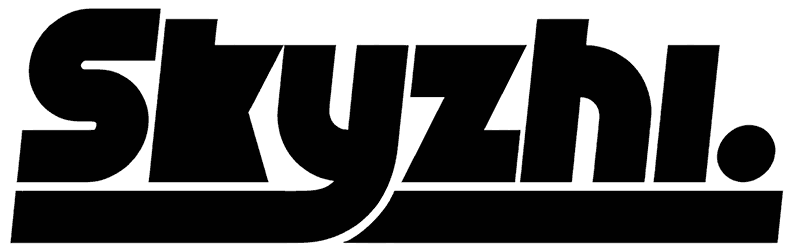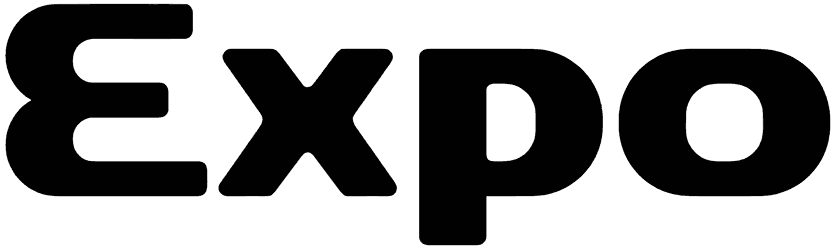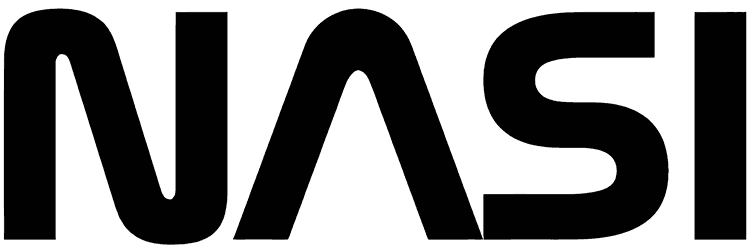
Magmawave Caps Font
Magmawave Font
That’s all, the digital and geometric design of this Magmawave Caps font can be an interesting point to increase the effectiveness of your typography, so overcome the hesitations and incorporate this techno font in designing any branding sports, games, digital apps, and more.
Furthermore, its racing design can bring futuristic moods that make it more special, especially for juveniles, and also make up for the lack of lowercase.